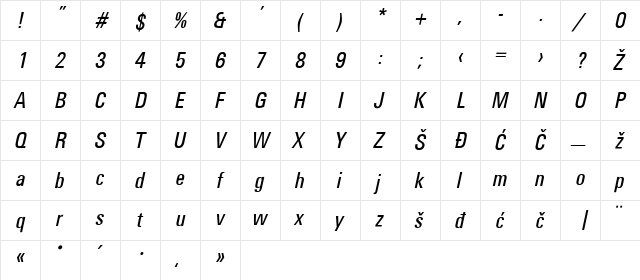
Universans570_PP Italic
Design Context for Universans570_PP Typeface
Universans570_PP offers clean, dependable letterforms without strong stylistic allegiance, making it a practical choice for designers who need flexibility. The dynamic lean of this cut emphasises speed and emphasis in any layout.